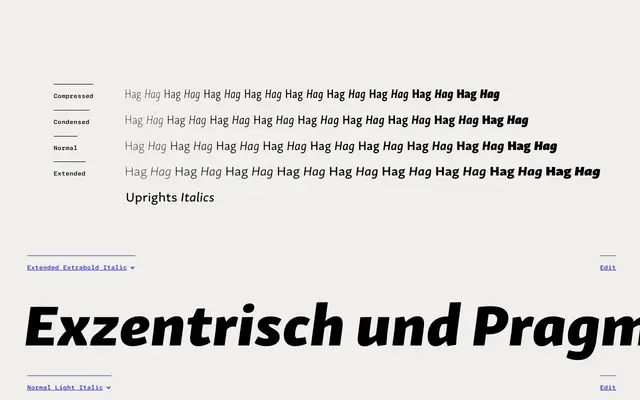
Skolar Sans PE
A large-scale humanist sans from Rosetta spanning four widths, nine weights and matching italics, with variable font support and coverage of Latin and Greek scripts.
With four widths running from Compressed to Extended, nine weights from Thin to Black and full italic counterparts, this family amounts to 72 static styles plus variable uprights and italics. Small caps and multilingual support across Latin and Greek make it suited to long-form editorial, complex information design and multilingual publishing. The variable axes allow precise control over weight and width within a single file.
Skolar Sans PE is a humanist sans-serif with a wide range of weights and widths, designed for demanding editorial and text environments across multiple scripts including Latin and Greek.